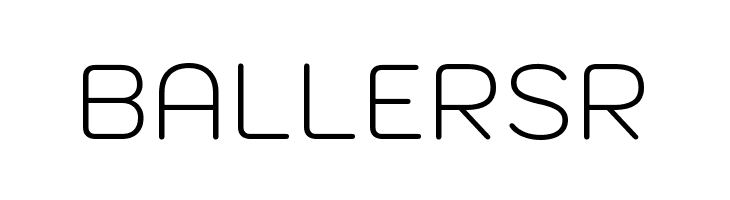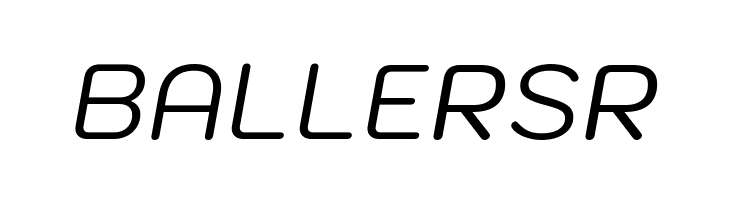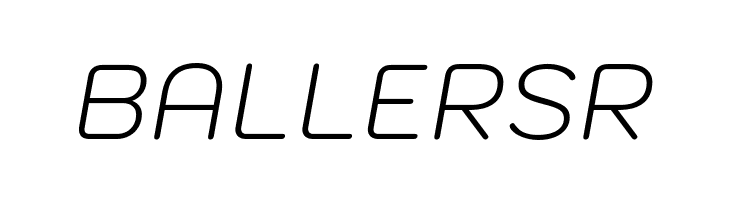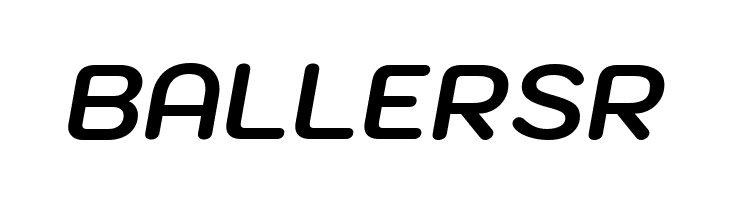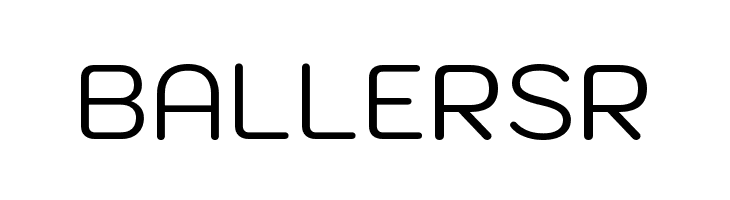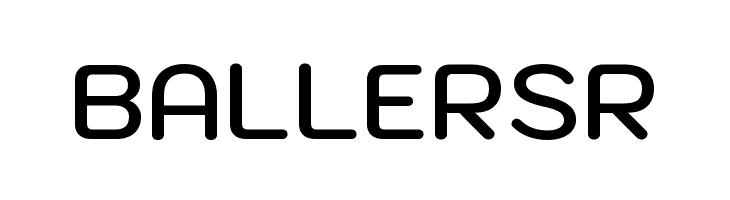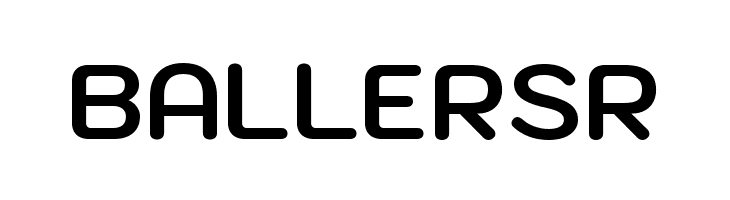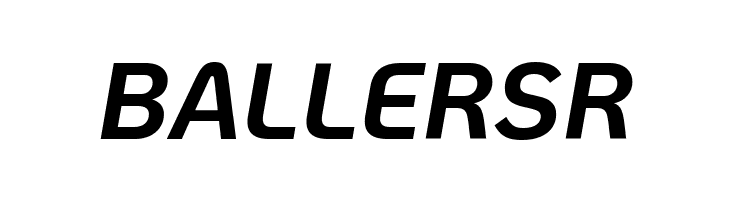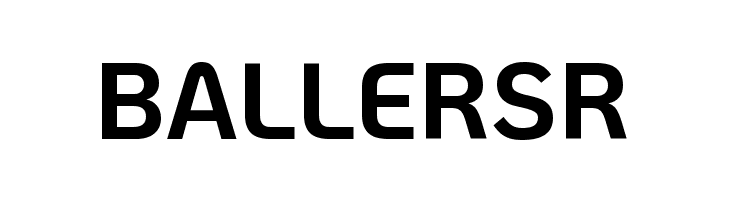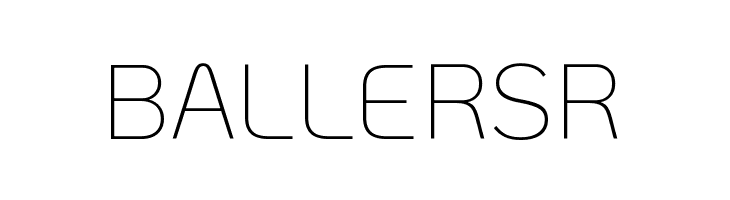
• Kinder Boy Italic
A bold, textured brush script font with a dynamic and expressive style.
• Kinder Boy Regular
A bold, brush-style font with an energetic and artistic appearance.
• KINDER PRO
A modern, geometric font with clean lines and rounded edges.
• Kinderskizzen Regular
A whimsical, hand-drawn font featuring quirky, cartoon-like characters.
• KingRabbit-Regular
A playful, bold font with rounded characters and a whimsical style.
• Kingsmen
• Kirang Haerang Regular
A playful, hand-drawn font with irregular strokes and a whimsical style.
• Klingon
• Know Your Product
A bold, stencil-style font with an industrial and rugged appearance.
• Koch Altschrift Initialen
An ornate decorative font with intricate floral designs on uppercase letters.
• Koch Initialen
An ornate, floral-themed decorative font with intricate botanical details.
• Koch-AntiquaZier
A classic serif font with elegant, decorative elements and modern touches.
• KochAltschrift
A classic serif font with sharp, angular serifs and a formal, elegant style.
• KochAltschrift-Bold
A classic serif font with calligraphic influences and elegant, angular serifs.
• KochAltschriftAlt
A vintage serif font with elegant curves and sharp serifs.
• KochAltschriftKursiv
An elegant italic font with high contrast and a classic style.
• KochAltschriftKursiv-Bold
A bold, cursive font with elegant, flowing letterforms and sharp serifs.
• Kodchasan Bold
A modern, rounded sans-serif font with smooth curves and bold weight.
• Kodchasan Bold Italic
A modern, bold italic font with rounded, smooth characters.
• Kodchasan ExtraLight
A clean, modern sans-serif font with geometric structure and rounded edges.
• Kodchasan ExtraLight Italic
A sleek, modern, extra-light italic font with rounded edges and smooth curves.
• Kodchasan Italic